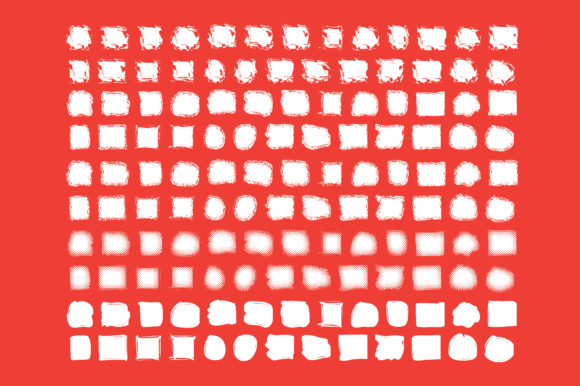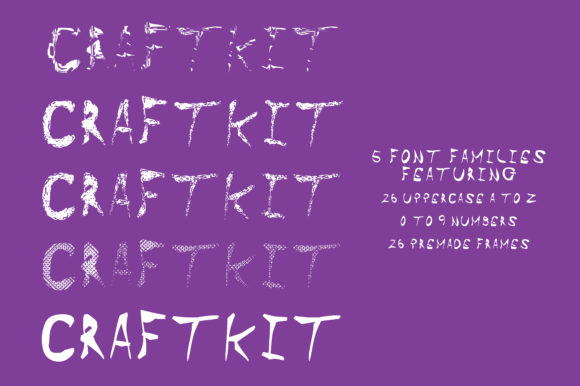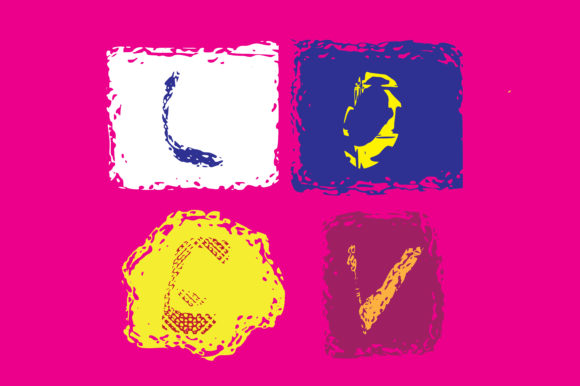
Craft Kit Font
About Craft Kit Font
Craft Lovers is a versatile and creative dingbat font that caters to the preferences of craft enthusiasts. With four distinct styles to choose from, this font offers a range of options for different design projects. Here’s how you can make the most of Craft Lovers:
1. Style Selection: Craft Lovers provides four unique styles to choose from. Take some time to explore each style and determine which one best suits your project. Consider the overall theme, mood, and aesthetic you want to achieve. Whether you prefer a whimsical, vintage, modern, or hand-drawn look, Craft Lovers has a style to match your preference.
2. Frames and Borders: One of the standout features of Craft Lovers is its collection of frames and borders. These decorative elements can add a charming and eye-catching touch to your designs. Mix and match different frames to create custom borders for photographs, artwork, or text. Experiment with layering and combining frames from different styles to achieve a unique and personalized look.
3. Crafting Projects: Craft Lovers is specifically designed for craft projects, making it perfect for a wide range of creative endeavors. Whether you’re creating scrapbook pages, handmade cards, party decorations, or personalized gifts, this font can enhance your designs. Use the frames and other elements to embellish your crafts and create visually appealing compositions.
4. Mix and Match: With Craft Lovers, you have the freedom to mix and match elements from different styles. This allows you to create truly unique and customized designs. Combine frames, borders, and other dingbat characters to craft compositions that suit your project’s requirements. Feel free to experiment and let your creativity guide you.
5. Digital and Print: Craft Lovers is suitable for both digital and print projects. Use it in graphic design software to create digital artworks, social media graphics, or website designs. Alternatively, you can also print the font and use it for physical crafts, such as scrapbooking, card making, or DIY home decor.
Remember to have fun and let your creativity shine when using Craft Lovers. This font provides a wealth of design possibilities, allowing you to create personalized and visually captivating projects that reflect your unique style and passion for crafting.